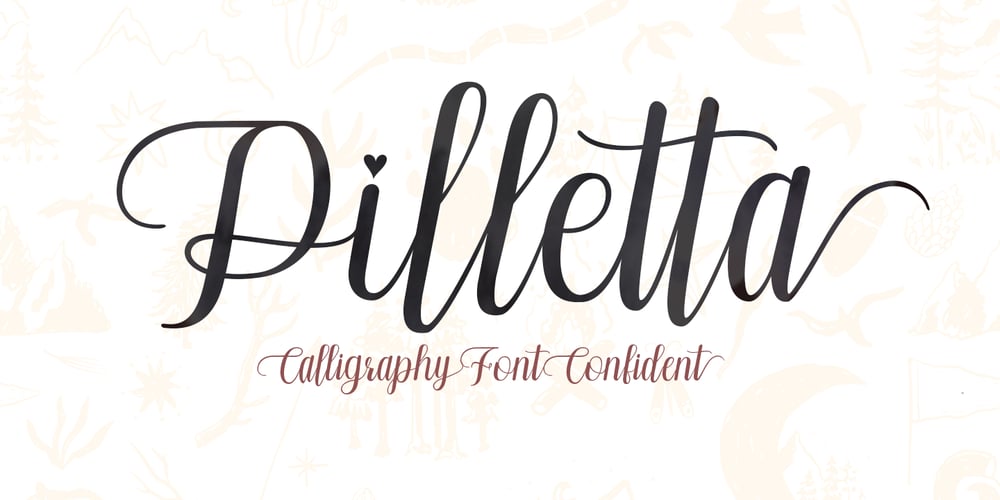
Pilletta Font Family was designed by Bustami Harun and published by Genesislab. Pilletta contains 1 styles and family package options. Pilletta, new script calligraphy, handwritten typography, modern calligraphy script, combining classic style with modern style calligraphy, make this a collection in your font libraryThere are over 386 glyphs in the font including style sets, Contextual Alternate, etc. OpenType has Style Alternate, Contextual Alternate, some characters that allow you to mix and match letter pairs to fit your design. To access the alternate glyphs, you need a program that supports OpenType features such as Adobe Illustrator CS and Adobe InDesign, Corel Draw, Microsoft Word.Can be used for various purposes such as titles, signatures, logos, wedding invitations, t-shirts, letterheads, nameplates, labels, newsletters, posters, badges, etc.